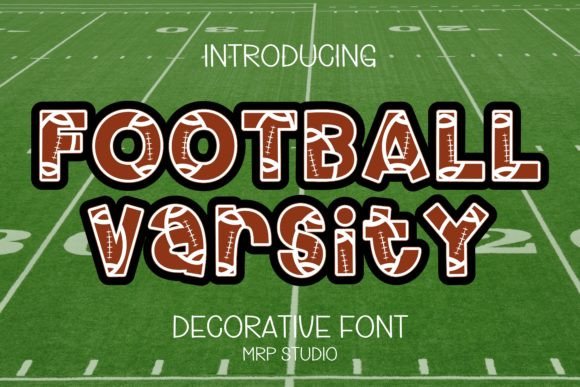
Introducing Football Varsity Font - A Touchdown of Delight in Every Character!
In a world of monotonous fonts, Football Varsity Font leaps onto the field as a playful and jubilant decorative font, ready to infuse your designs with a spirited energy like a winning touchdown. Its quirky letterforms, reminiscent of a child's playful scribbles, dance across the page, carrying a wave of joy and lightheartedness.
Picture this: The bold strokes of Football Varsity Font, as unique as the patterns on a football, bring greeting cards to life with infectious cheerfulness. Its playful doodles, like confetti scattered across a stadium, add a burst of color and excitement to children's books, making every page a delightful adventure. And when you need a dose of happiness in your designs, Football Varsity Font comes to the rescue, transforming ordinary into extraordinary.
With Football Varsity Font, you'll have the winning strategy for capturing attention and making a lasting impression. Its charming quirks will add a spark of joy to any project, making it a perfect choice for cheerful logos, eye-catching social media posts, or vibrant website designs. Unleash your creativity and let Football Varsity Font lead your designs to victory!